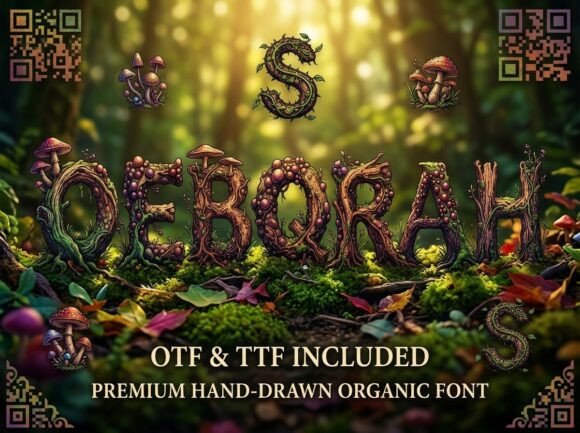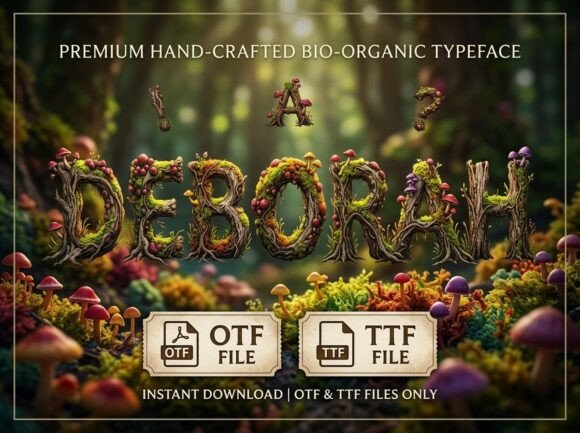
The Deborah Font: A Stunning Decorative Display Font to Elevate Your Designs
I’ll never forget the time I was working on a project for a client who wanted a bold, eye-catching poster design. I had spent hours browsing through font libraries, but nothing seemed quite right. That was until I stumbled upon the Deborah Font. Its unique artistic elements and strong visual personality immediately caught my attention, and I knew I had found the perfect fit. In this article, I’ll share my experience with the Deborah Font, its features, and how to make the most of it in your designs.
- ✨ Unique and intricate details that add an instant “wow” factor to any project
- ✅ Strong visual personality that commands attention
- 💡 Versatile enough for bold headlines, artistic logos, and creative packaging
- 🎨 Perfect for high-impact designs where typography needs to do the talking
While the Deborah Font is an amazing decorative display font, there are a few things to keep in mind:
- 🤔 May not be suitable for body text or long-form content due to its intricate details
- ⚠️ May require some adjustments for optimal kerning and spacing
The Deborah Font comes with a range of OpenType features, glyphs, and stylistic alternates that can elevate your designs. Here’s how to access them:
The Deborah Font was inspired by the works of renowned artists and designers who pushed the boundaries of typography. Its unique artistic elements and strong visual personality are a testament to the power of creative experimentation. Whether you’re a designer, crafter, or creative hobbyist, the Deborah Font is sure to inspire you to try new things and take risks in your design work.
Q: What is the Deborah Font best suited for?
A: The Deborah Font is perfect for high-impact designs where typography needs to do the talking, such as poster design, branding and logos, apparel and merch, and social media content.
Q: Can I use the Deborah Font for body text?
A: While the Deborah Font is an amazing decorative display font, it may not be suitable for body text or long-form content due to its intricate details.
Q: Is the Deborah Font easy to read?
A: The Deborah Font is designed to be attention-grabbing, but it may require some adjustments for optimal readability, especially at smaller font sizes.